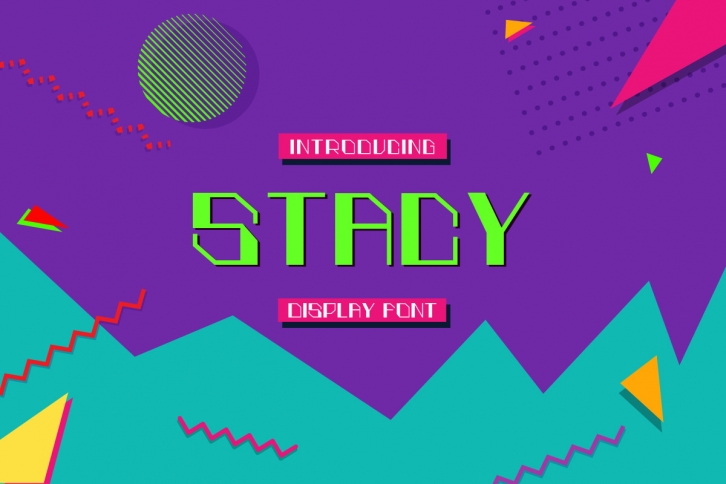
Stacy is a playful display font. This font will be a wonderful asset to your font library, as it has the potential to enhance any creation. This font will be the perfect choice for a wide range of creations such as magazine titles, books, social media posts, statements, and so much more!